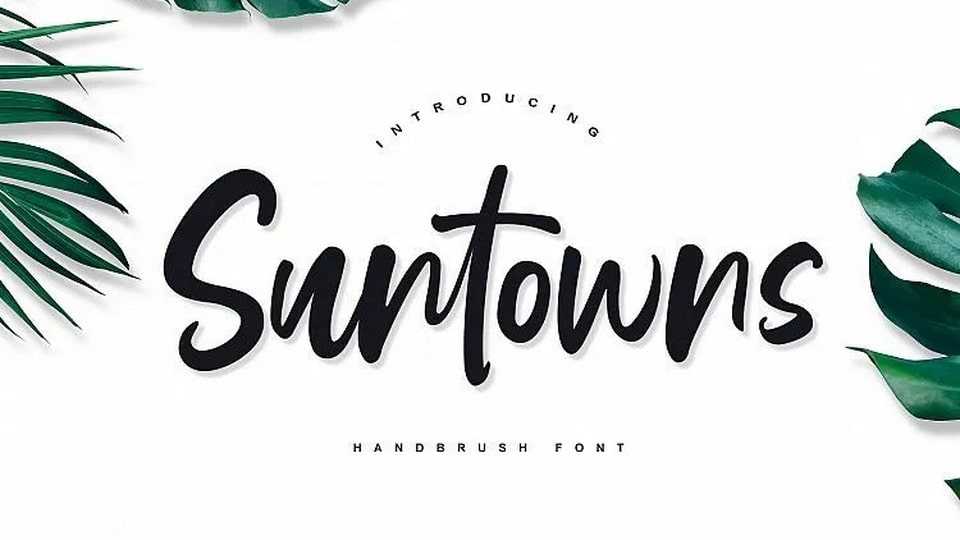
Download Suntowns font, a simple handwritten script font with a relaxed theme, featuring an organic style. No matter the topic, Suntowns font will be an incredible asset to elevate any creation.
Designer: Damarletter